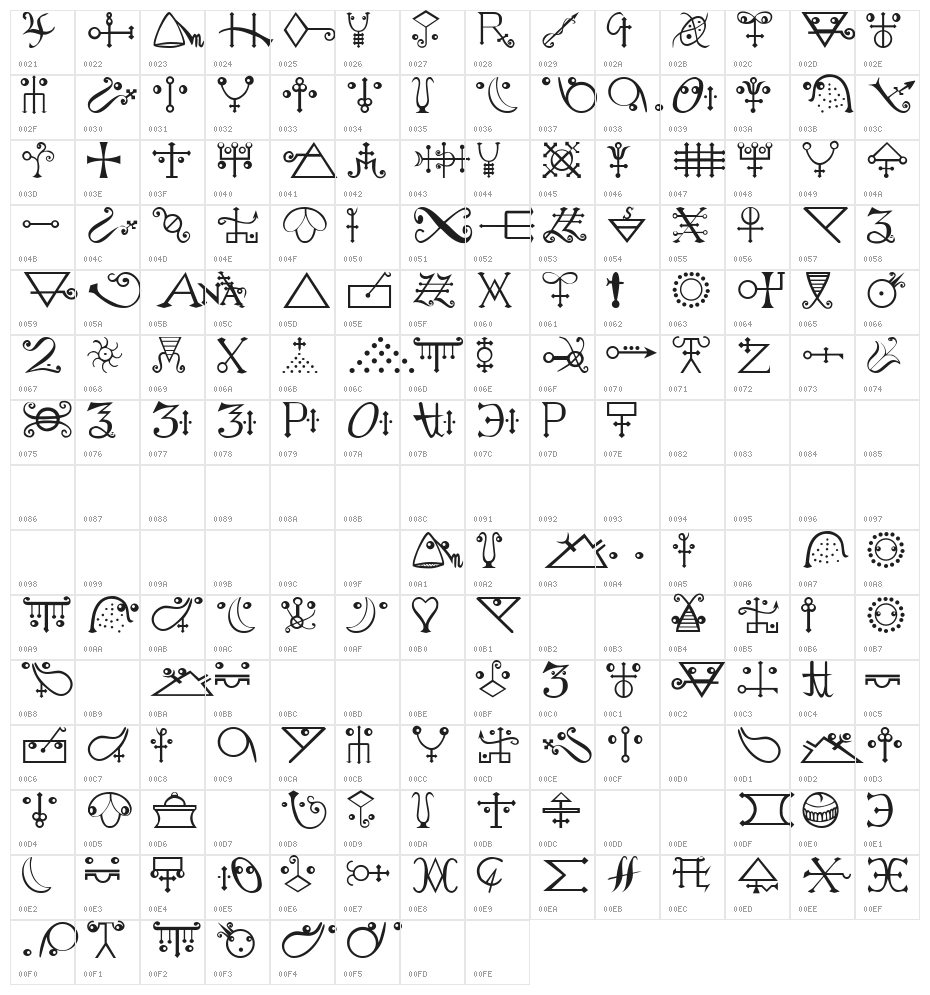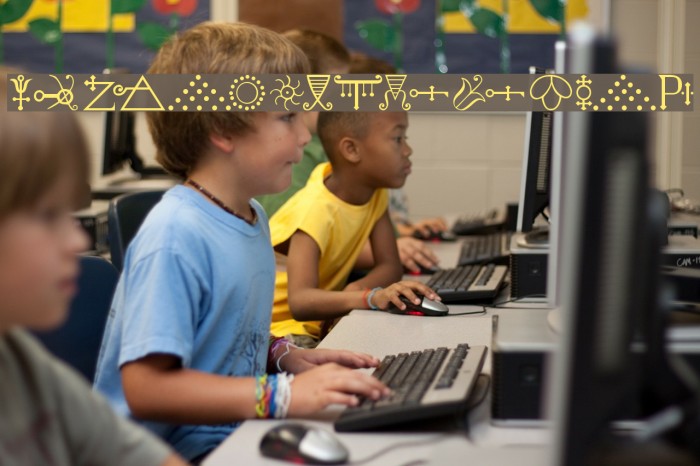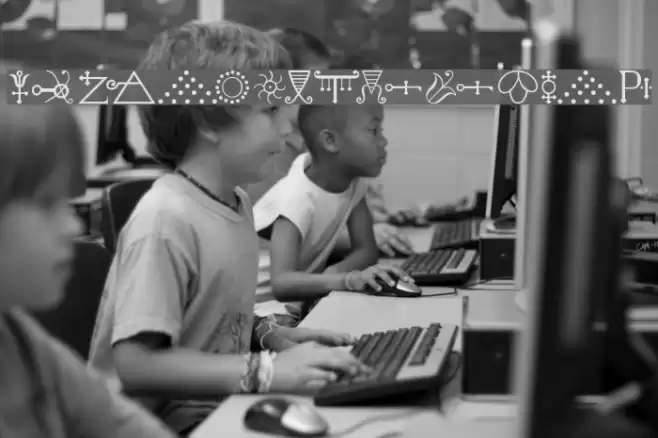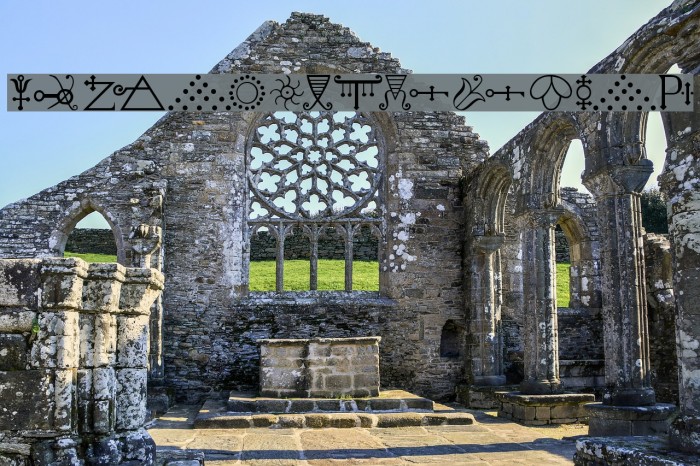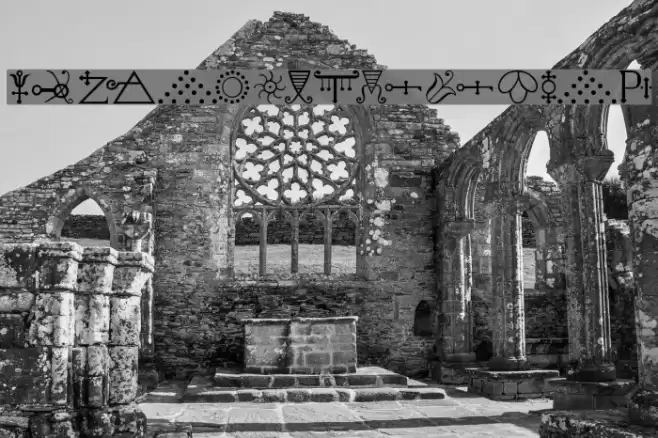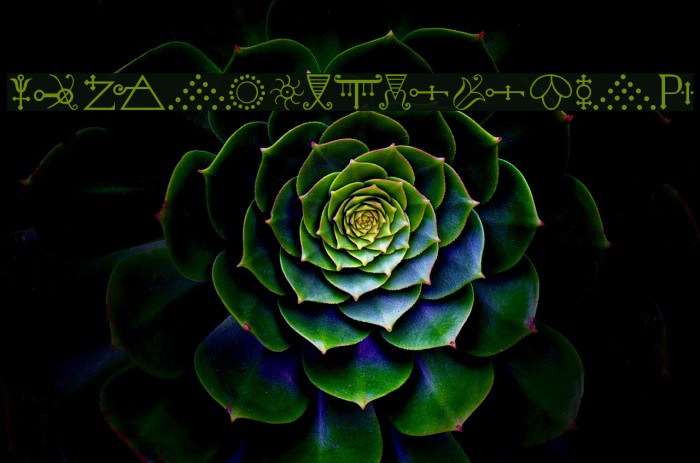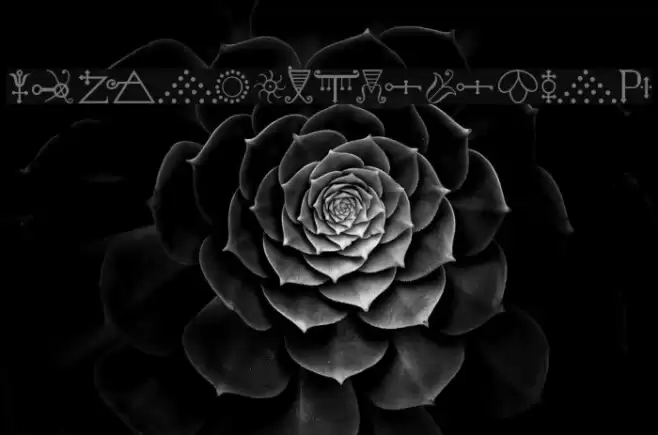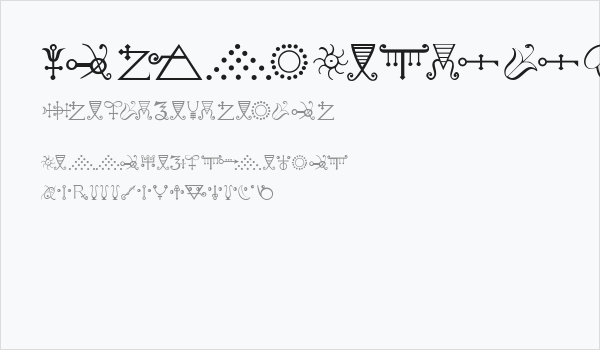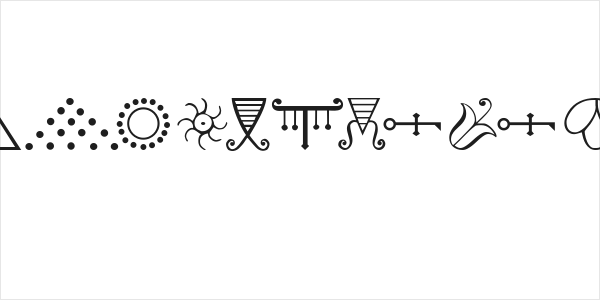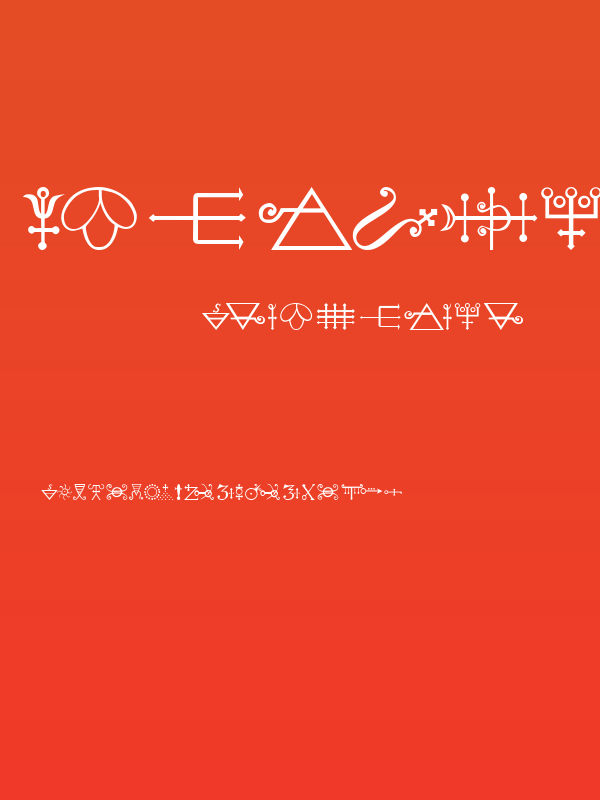
ForAlchemistsOnly Font
ForAlchemistsOnly Description
This collection of symbols is not a traditional font but rather a set of alchemical or mystical symbols. Each character is uniquely designed with intricate details, often incorporating geometric shapes, lines, and dots. The symbols appear to be inspired by ancient scripts or esoteric iconography, featuring a blend of curves, angles, and ornamental elements. The overall appearance is decorative and complex, suggesting a purpose beyond conventional text representation, possibly for artistic or symbolic use.
| Overall Style | Mystical, Esoteric, Decorative |
| Use Case | Artistic designs, Fantasy themes, Symbolic representations |
| Proposed Projects | This set could be used for artistic projects, mystical or fantasy-themed designs, or as decorative elements in graphic design work. |